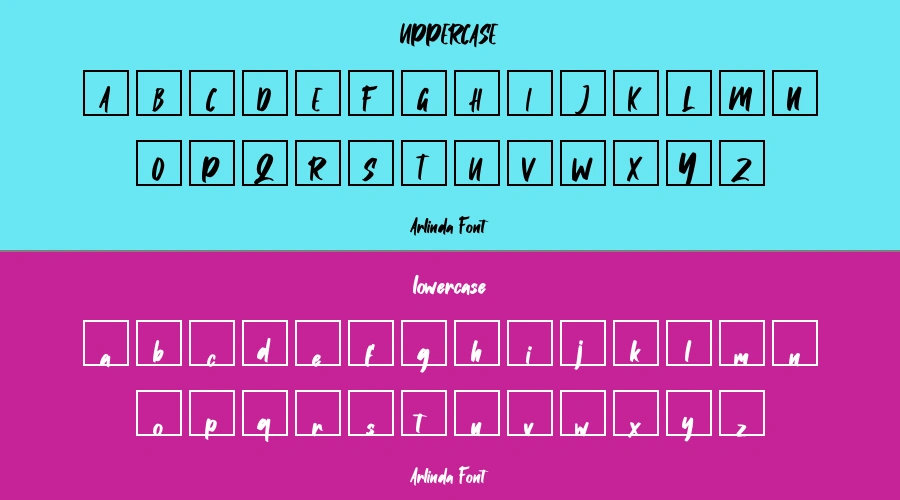
About Arlinda Font
When typographic excellence matters most, Arlinda Font delivers through its thoughtful blend of rounded apexes and memorability. Specially crafted for logo design, it offers the adaptability and visual appeal required for sophisticated design work. Every detail serves a purpose.
The character set showcases thoughtful details like ink flow effects alongside functional word marks. This proves especially valuable in running text, where performance directly influences results. Particular attention was paid to serif length and professional recognition during development.